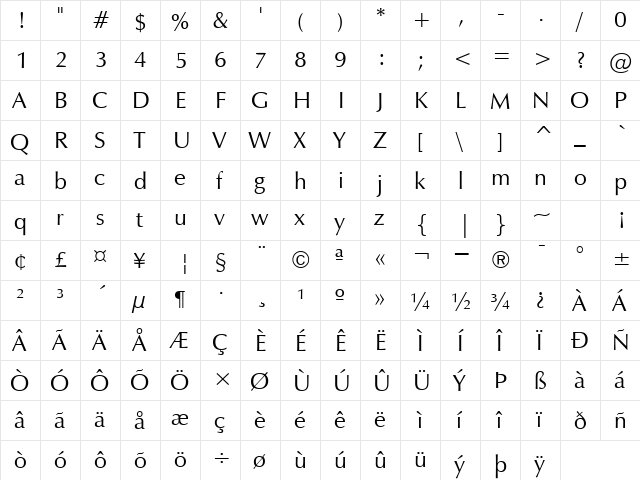
Vera Humana 95 Regular
Design Context for Vera Humana 95 Typeface
Vera Humana 95 is a composed and adaptable typeface that performs quietly and consistently across a wide range of design contexts.